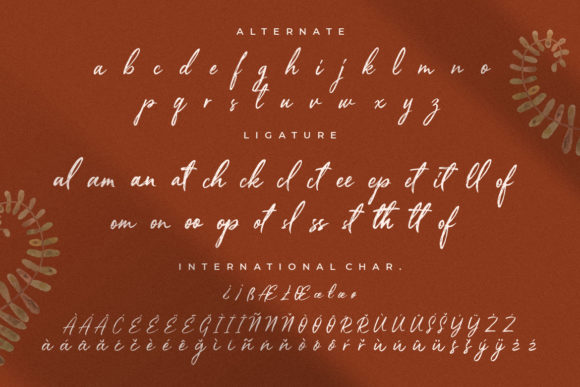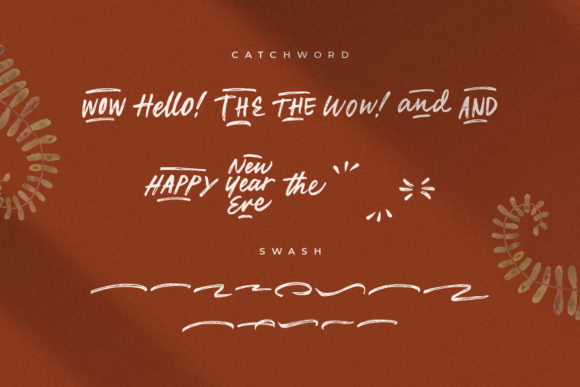
About Priscilla Font
Priscilla is a fancy brush-style script font that exudes elegance and creativity. Its versatility makes it suitable for a wide range of design projects, from letterheads and titles to stationery and beyond.
With its intricate brush strokes and unique letterforms, Priscilla adds a touch of sophistication and flair to your designs. The fine details and flowing curves of the letters give the font a sense of elegance and charm, making it perfect for creating refined and eye-catching designs.
One of the key features of Priscilla is its versatility. Whether you’re working on a professional letterhead, a creative project, or personal stationery, this font can adapt to various design styles and themes. Its fancy brush style adds a level of artistic expression to your work, making it stand out and leave a lasting impression.
The PUA encoding of Priscilla ensures easy access to all the glyphs and swashes that come with the font. This means you can effortlessly access and use a wide range of decorative elements, swashes, and alternative characters to add even more visual interest to your designs. The ability to customize and embellish your typography gives you endless possibilities for creative expression.
Priscilla shines in both large and small sizes, maintaining its legibility and impact. This makes it suitable for various applications, such as headlines, titles, logos, invitations, and more. The intricate brush strokes and unique letterforms ensure that your message is conveyed with style and sophistication.
When using Priscilla, feel free to experiment with different typographic treatments and pairings. Its fancy brush style complements both serif and sans-serif fonts, allowing you to create harmonious and visually appealing combinations. By combining Priscilla with other fonts, you can achieve a balanced and dynamic composition that captures attention.
In summary, Priscilla is a fancy brush-style script font that offers versatility, elegance, and creativity. Its PUA encoding provides easy access to a wide range of glyphs and swashes, allowing you to customize and embellish your designs with ease. Whether you’re designing professional letterheads or crafting personalized stationery, Priscilla is the perfect font choice to add a touch of sophistication and artistic flair to your projects.